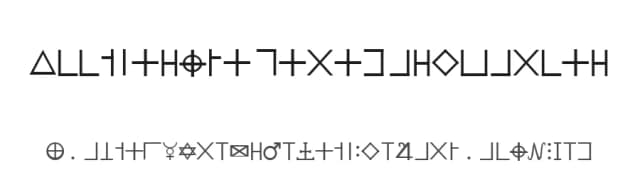
About Illuminati Masonic Cipher Font
Font based on the Bavarian Illuminati Masonic Cipher from the Secret State Archives Prussian Cultural Center in Berlin and transcribed in The Secret School of Wisdom.
| Designer | Tom Hidell |
Illuminati Masonic Cipher Font is a versatile dingbats font that works for both headings and body text. Pair it with a contrasting sans-serif or serif font to add visual interest and a clear distinction between titles and body copy.